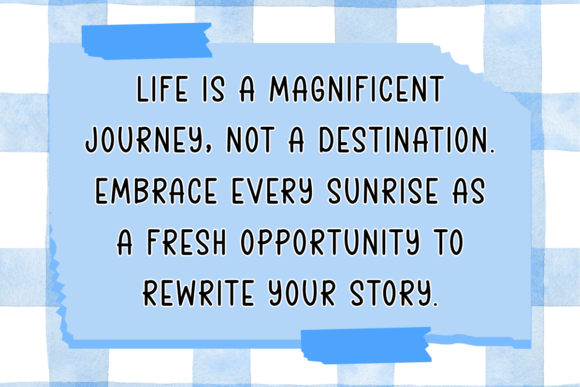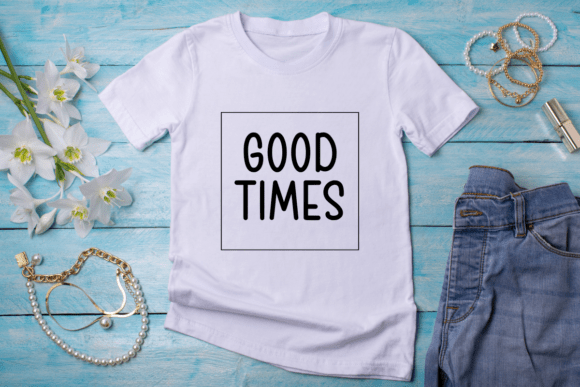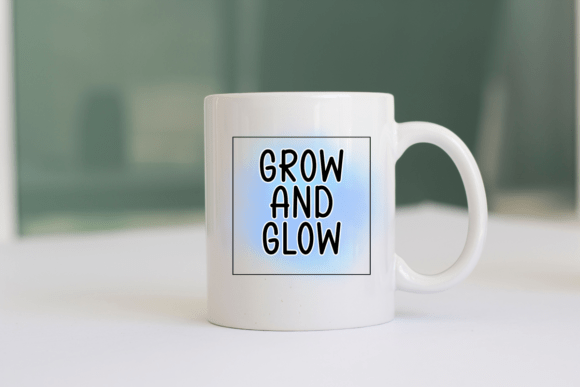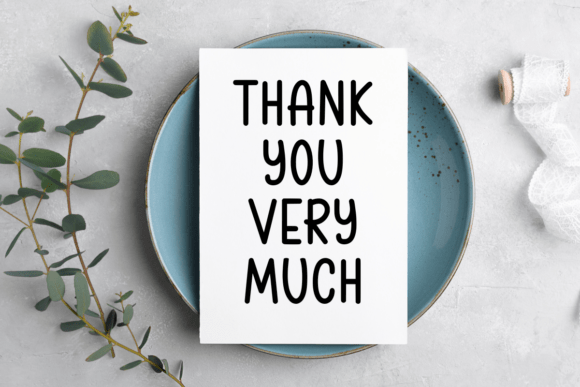
Introduction to Milky Butter Font Font
Fonts play a crucial role in design, and the Milky Butter Font font is a typeface that brings both character and versatility to any project. Whether you’re working on a branding project, a website, or a print design, the Milky Butter Font font offers a unique style that can elevate your work.
Milky Butter is a fancy handwriting font that has a cute style.
Great for quotes, stickers, mugs, tumblers, sublimation, t-shirts, and more .
Key Features of Milky Butter Font Font
Why Choose Milky Butter Font Font?
The Milky Butter Font font is more than just a typeface – it’s a design tool that helps you communicate your message with style and clarity. Its unique character set and versatile design make it suitable for a wide range of applications, from elegant invitations to bold headlines.
With its carefully crafted letterforms and balanced proportions, the Milky Butter Font font ensures readability and visual appeal across all mediums.
What makes Milky Butter Font font special?
The Milky Butter Font font stands out with its unique design, exceptional readability, and versatility across various design applications.